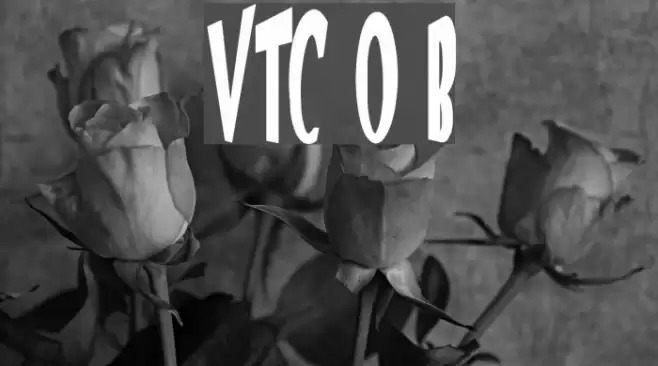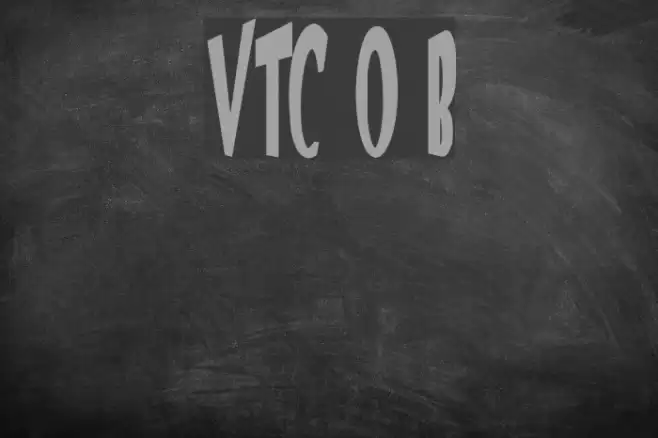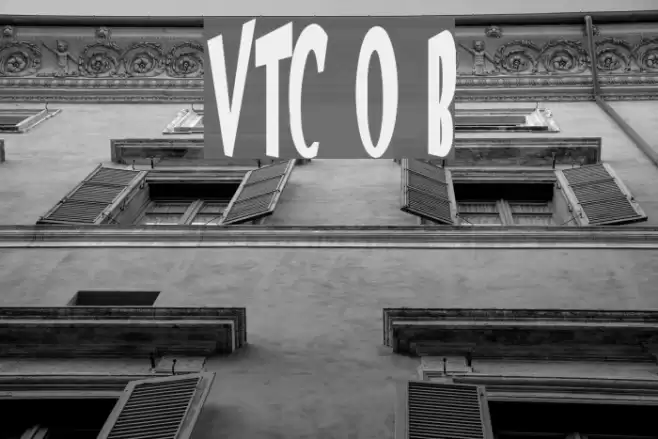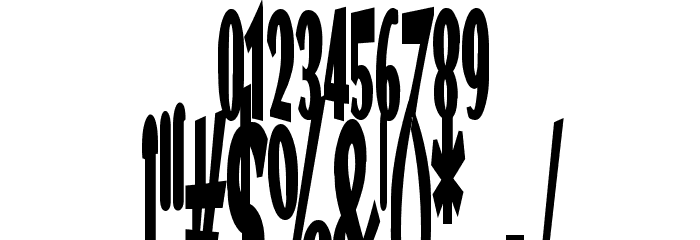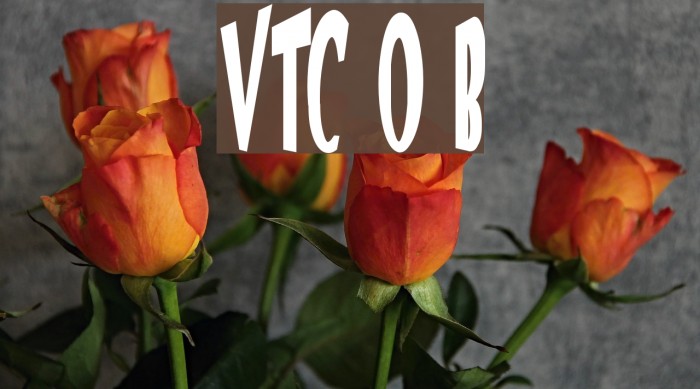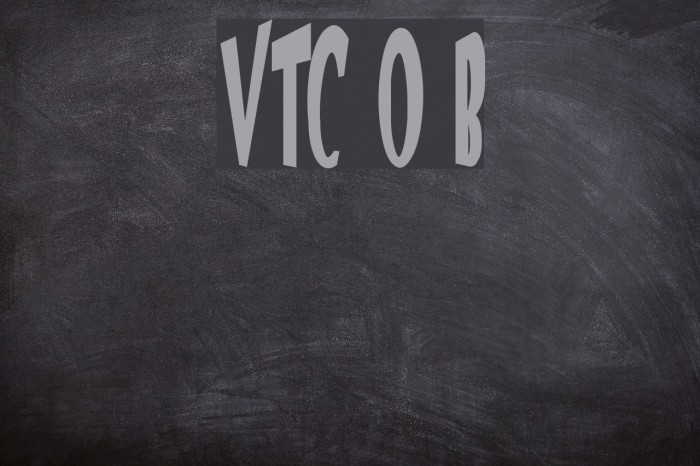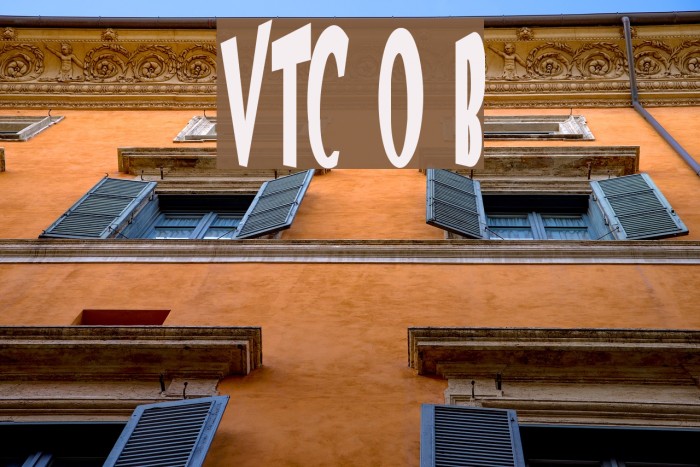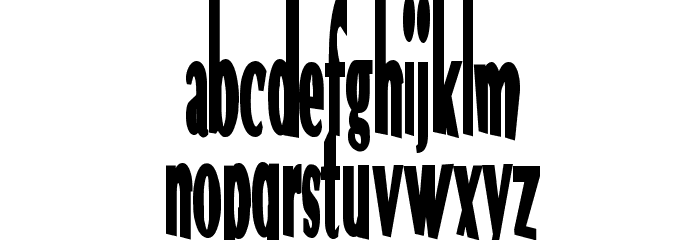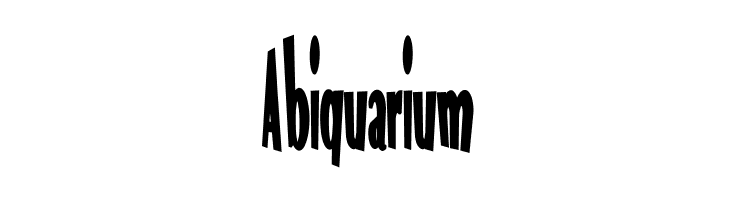
VTC Optika Bold Font
VTC Optika Bold Description
This font features a bold and dynamic style with exaggerated, elongated characters that create a sense of movement and energy. The uppercase letters are particularly striking, with a tall and narrow form that commands attention. The lowercase letters maintain a similar aesthetic, ensuring consistency throughout the text. Numbers and special characters are designed to match the boldness of the alphabet, making them suitable for impactful displays. The overall appearance is modern and eye-catching, ideal for projects that require a strong visual presence.
A bold, dynamic font with elongated characters and a modern style from Decorative fonts.
- Proposed Projects: Ideal for posters, headlines, branding, and any project needing a bold visual impact.
- Character Spacing: Tight